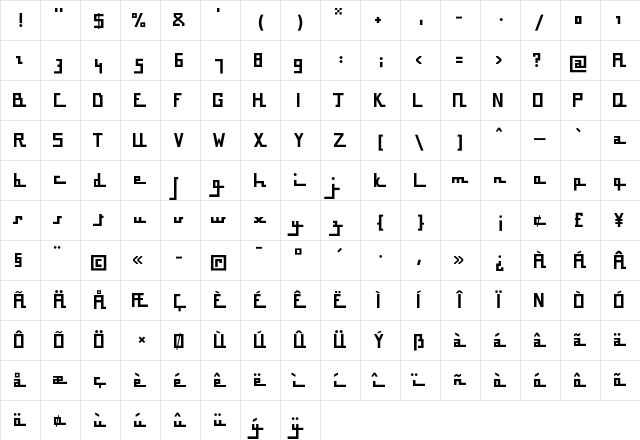
BousniCarre LT Std Bold Regular
Foundry: Linotype Library GmbH
Designer: Bachir Soussi Chiadmi
Design Context for BousniCarre LT Std Bold
BousniCarre LT Std Bold is a composed and adaptable typeface that performs quietly and consistently across a wide range of design contexts. Its bold stroke weight gives it real presence on the page.